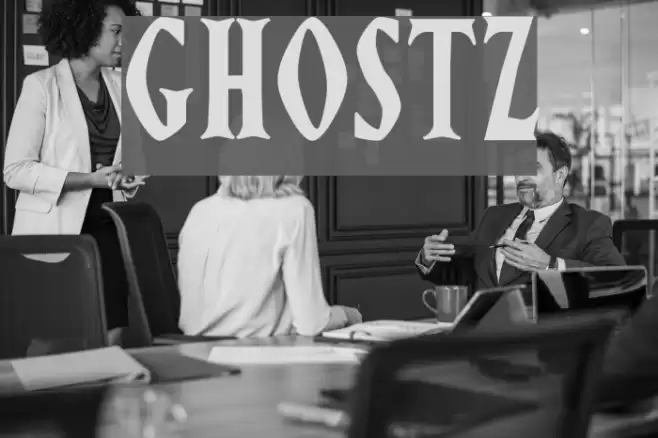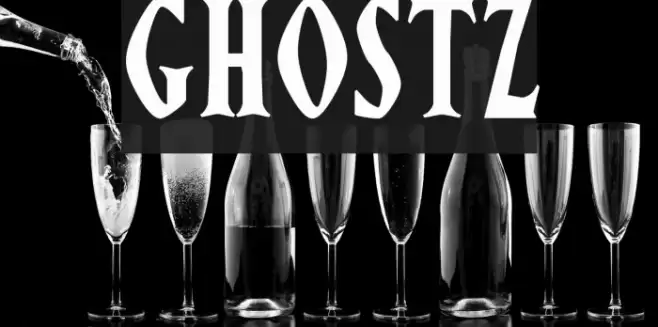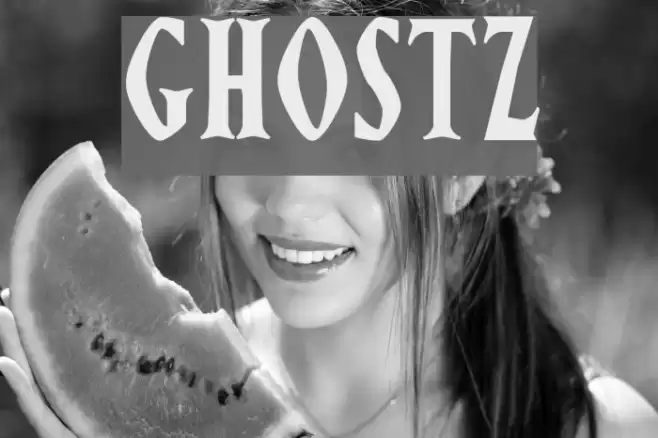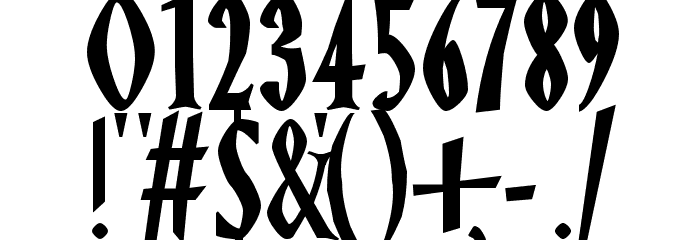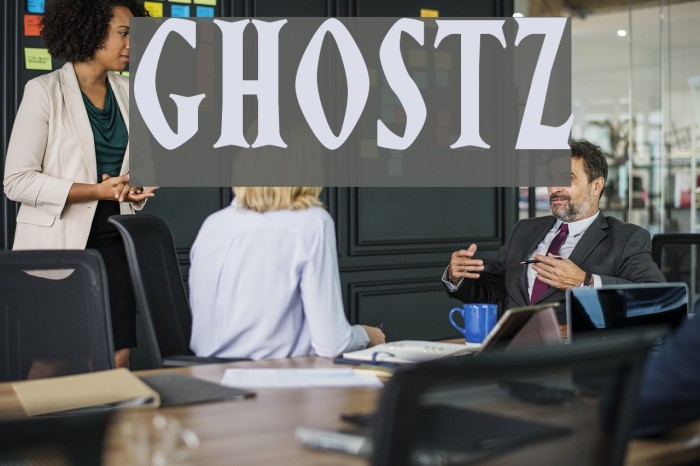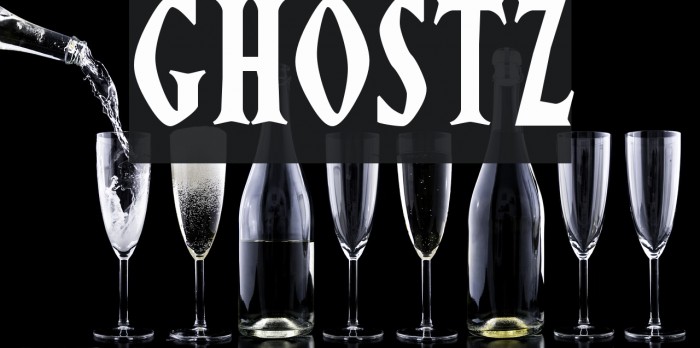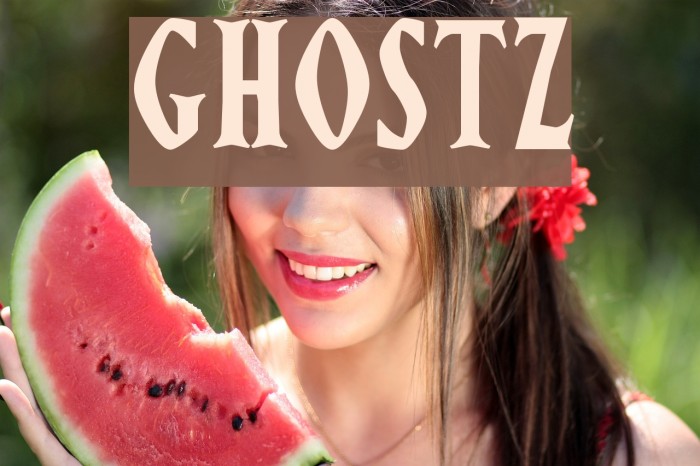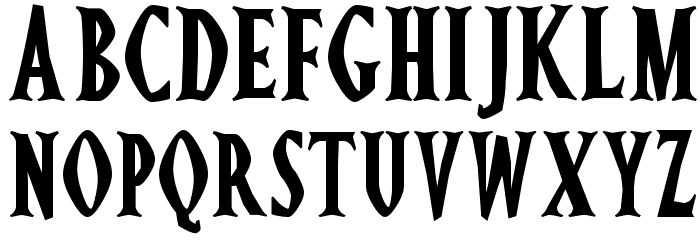
Ghostz Font
Ghostz Description
This font features a bold and dramatic style with sharp, pointed serifs and a slightly condensed form. The uppercase letters are tall and commanding, while the lowercase letters maintain a consistent height, creating a cohesive look. The numbers are equally bold, with a distinctive flair that matches the overall aesthetic. Special characters are designed with the same sharpness and boldness, ensuring they stand out. The font's high contrast between thick and thin strokes adds to its striking appearance, making it ideal for attention-grabbing designs.
A bold, sharp serif font with high contrast and a dramatic style from Uncategorized fonts.
- Proposed Projects: Ideal for horror-themed posters, Halloween invitations, or any project requiring a dramatic and bold typeface.
- Use Case: Headlines, Posters, Logos